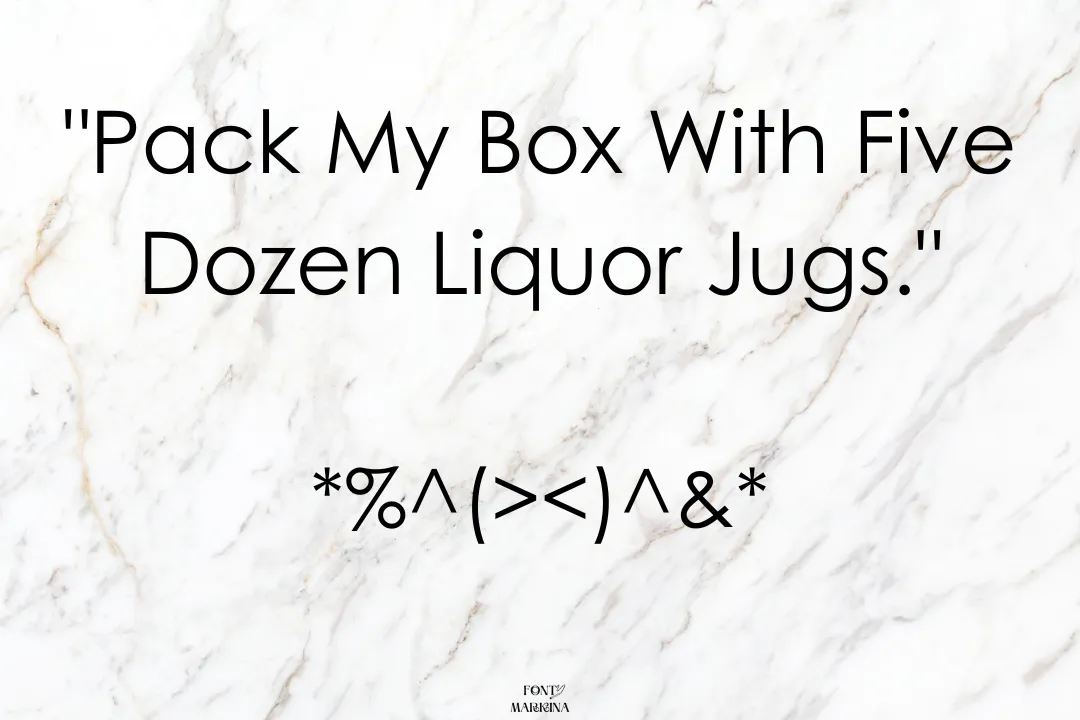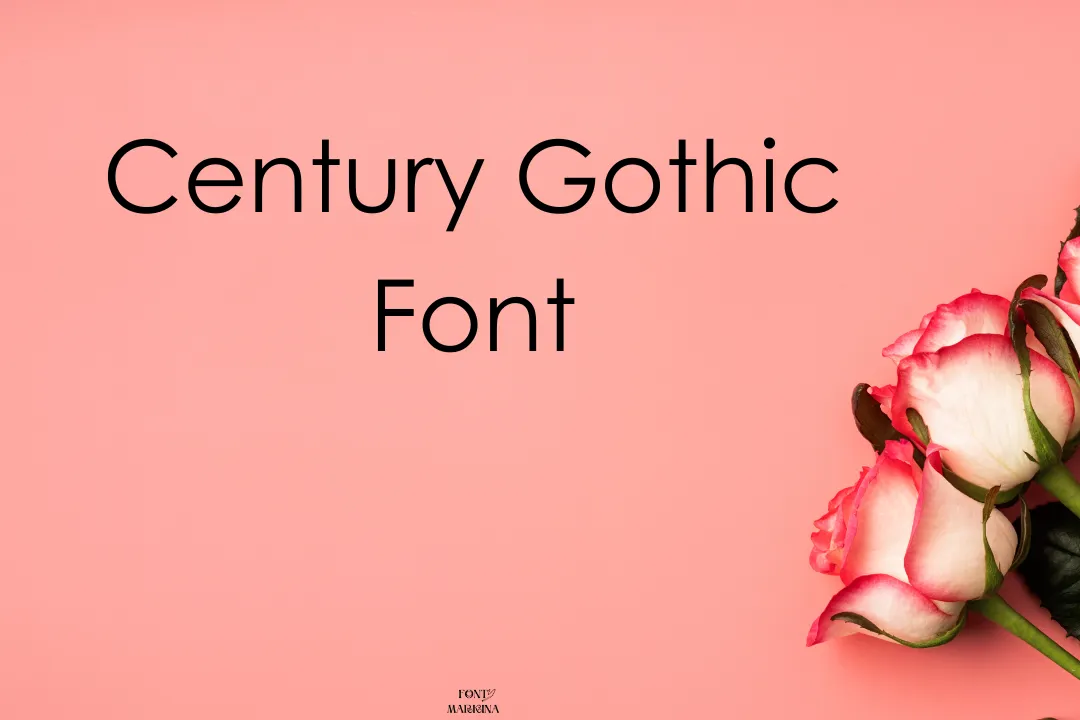
Hey there to everybody! we introduce Century Gothic Font in detail. This stunning typography falls in the classification of the sans serif family of fonts. The main designer of this family was Sol Hess a very brilliant designer. Especially for CSS and HTML, this typeface is very effective.
It is best for your Adobe and Canva and other online programs. You can also explore this family on google. by the source of Monotype Imaging Foundry this font was released in the year 1991. The family is known for its large X height. Avenir font is similar to this one and has the same styles.
Uses of Century Gothic Font
This interesting font is used for a vast variety of plans and functions. Many designers search for this family for their projects. In your banner designs, signboards, and book covers you can use this family of fonts.
If someone wants to use this family with more efficient results then you will have to make the strong pairing of Helvetica Neue font with this family. Mostly all traffic signs and public transportation systems can be controlled by using this family. For various types of website plans and projects, you will have to select this family.
| Name | Century Gothic Font |
| Designer | Sol Hess |
| Date | 1991 |
| Style | Sans Serif |
What is Century Gothic font used for?
This typography is used for a variety of projects according to the needs and requirements of users.
Is Century Gothic A good font?